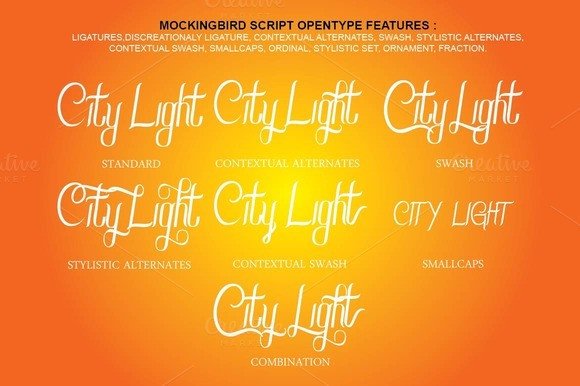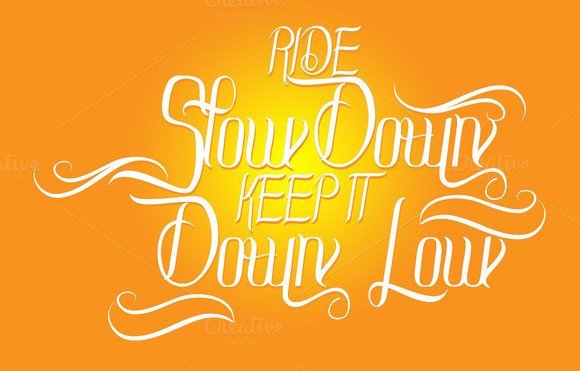
Introduction to Mockingbird Script Font
Mockingbird script is a beautiful, classic, and fun script.
Can be used for various purposes such as wedding invitations, logos, t-shirts, letterheads, signages and much more .
Key Features of Mockingbird Script Font